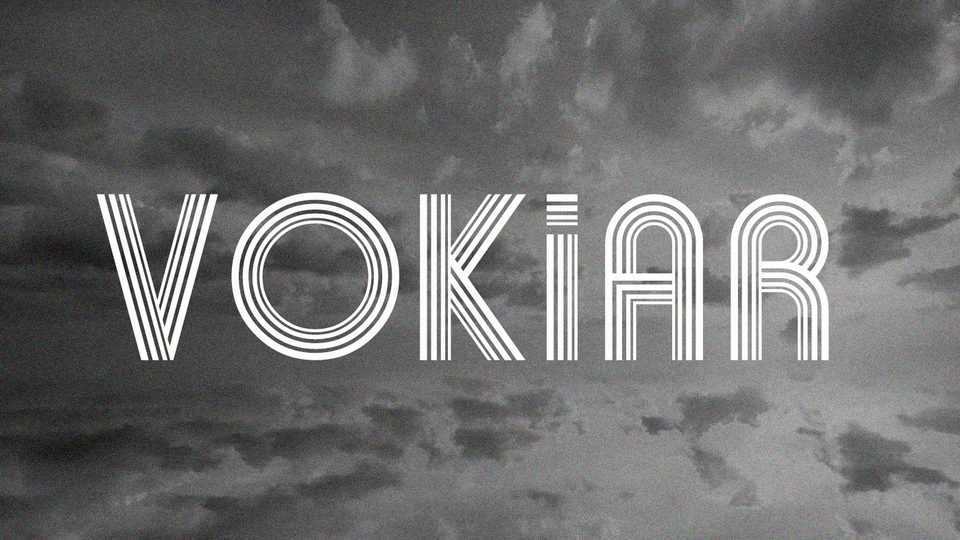
Download Vokiar font, a multi-line geometric sans serif typeface inspired by a retro aesthetic. Vokiar has extended language support and is not perfect for any project.
Designer: Maxim Raikov